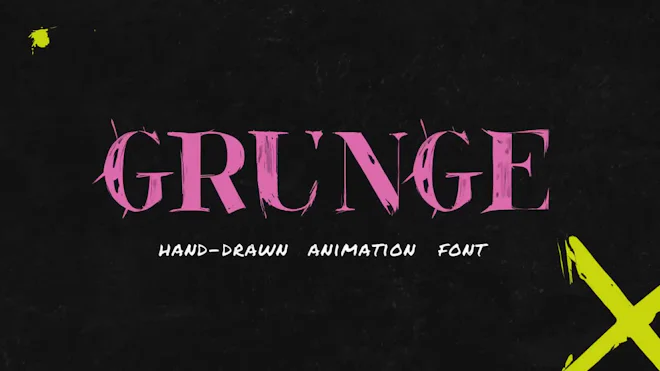
This stock motion graphics video pack includes 44 different clips of noisy grunge animated letters, numbers, and symbols on a transparent alpha channel in a seamless loop.